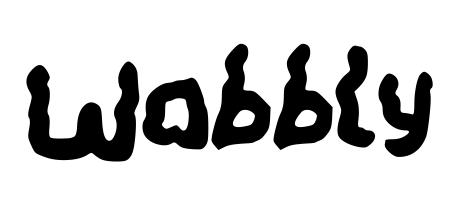
Wobbly
Wobbly, a playful and slightly unsteady font, mimics the movement of its namesake. Each letter possesses a unique, gently undulating form, giving it a hand-drawn, almost wobbly quality. The thick strokes add to its informal, friendly character, perfect for casual projects or where a touch of whimsy is desired.